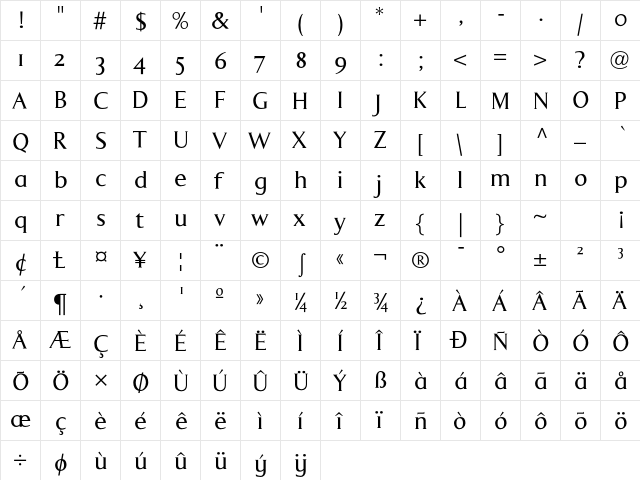
LuMarcLL Normal Font Preview
LuMarcLL Normal
Design Context for LuMarcLL Typeface
LuMarcLL takes a measured approach to typography — its balanced proportions and neutral character make it a reliable workhorse for both digital and print work.